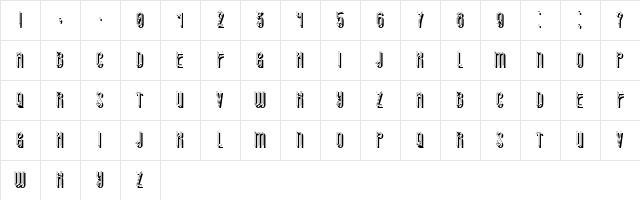
Barefoot Regular
Barefoot Family
Design Context for Barefoot
Barefoot is a composed and adaptable typeface that performs quietly and consistently across a wide range of design contexts.